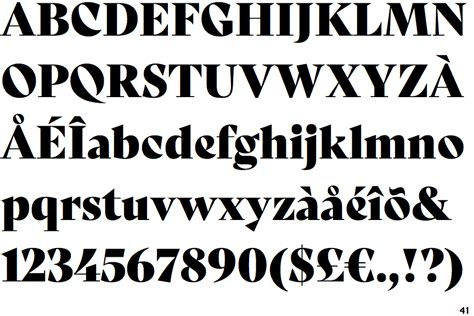
Bely Display Font. Bely is roxane gataud’s venturesome text font family paired with a fearless display. The quick brown fox jumps over the lazy dog.
The quick brown fox jumps over the lazy dog. Web designed by roxane gataud. Web bely text features balanced capitals and a play between large, triangular serifs at the top and thick, bracketed, rectangular serifs. The quick brown fox jumps over. Bely is roxane gataud’s venturesome text font family paired with a fearless display.
Web designed by roxane gataud. Web bely text features balanced capitals and a play between large, triangular serifs at the top and thick, bracketed, rectangular serifs. Bely is roxane gataud’s venturesome text font family paired with a fearless display. The quick brown fox jumps over the lazy dog. The quick brown fox jumps over. Web designed by roxane gataud.